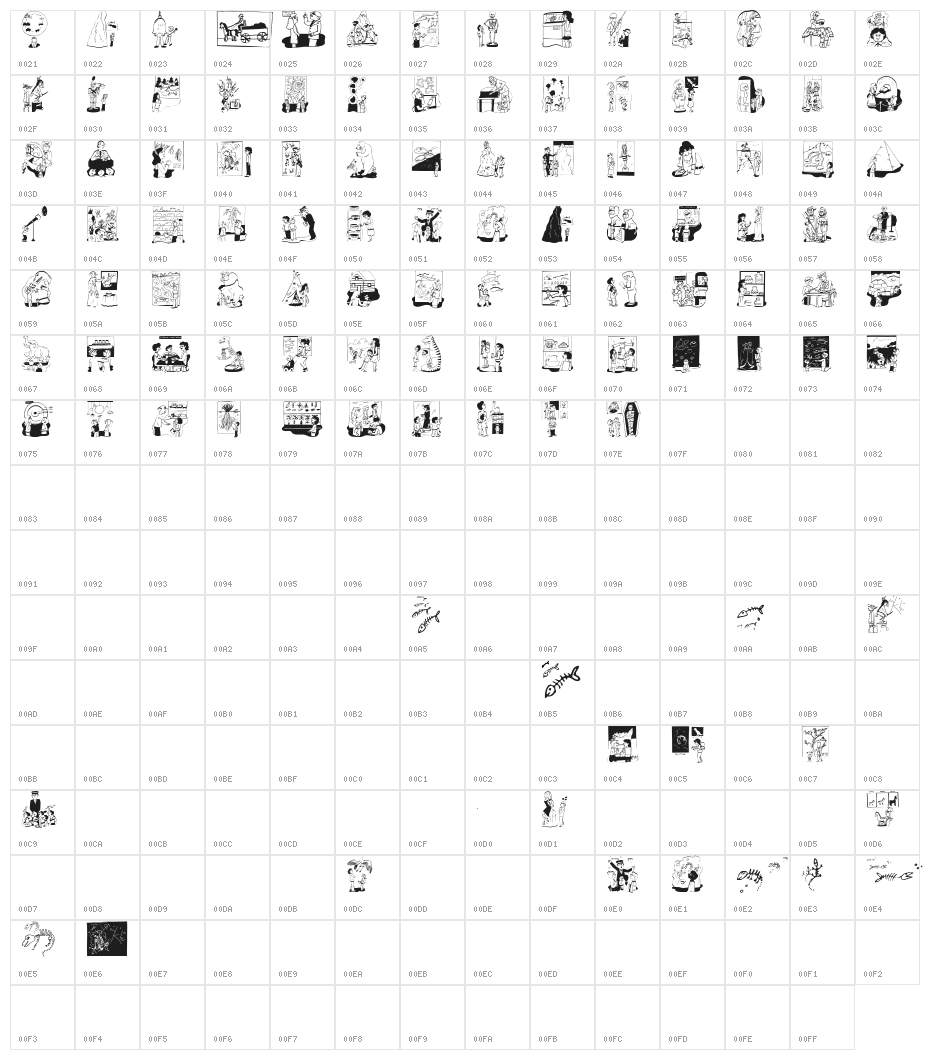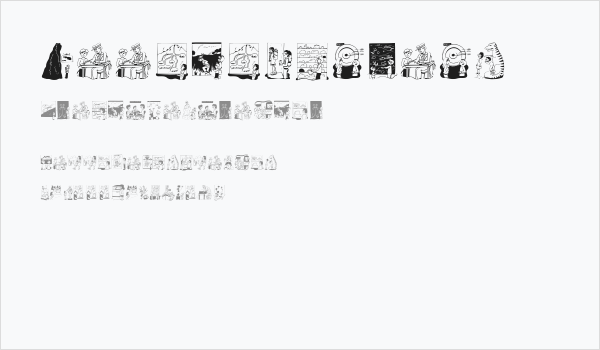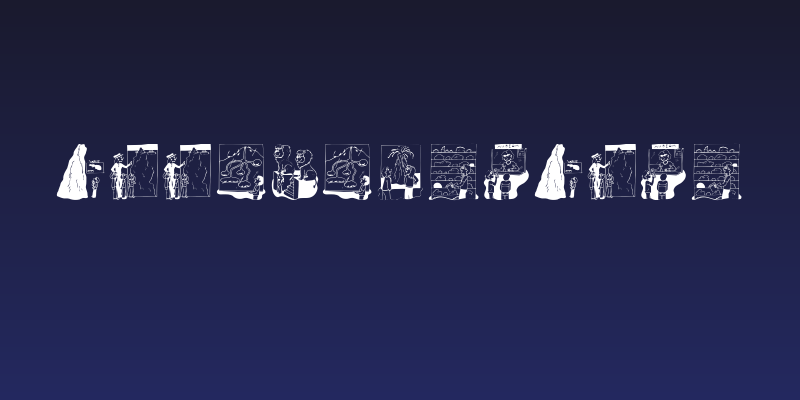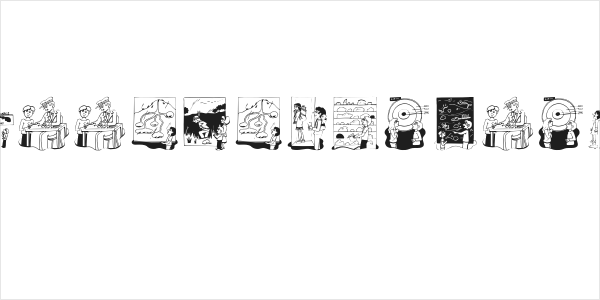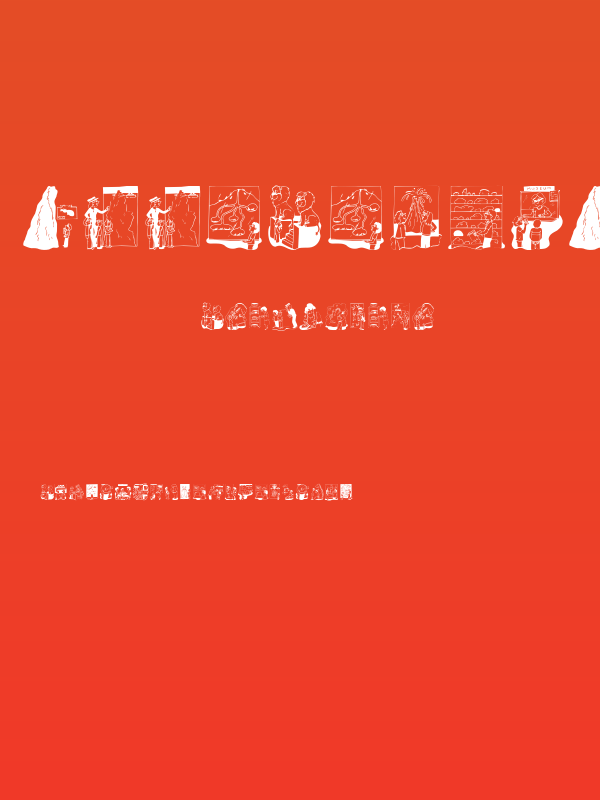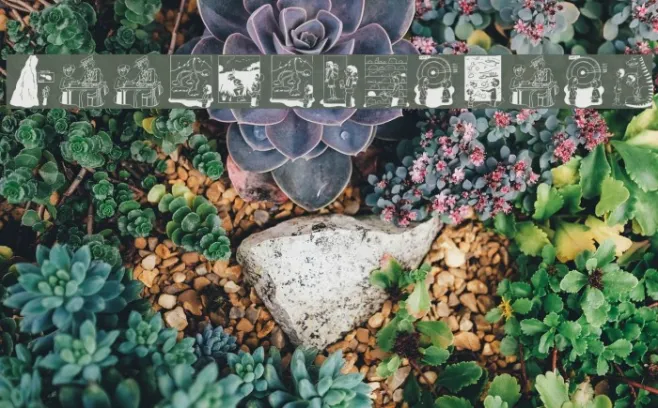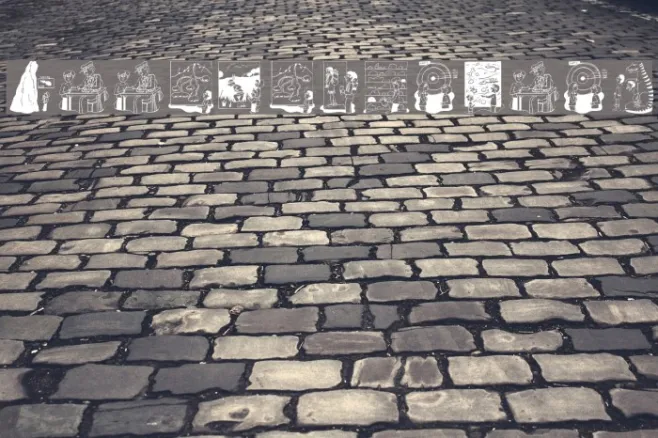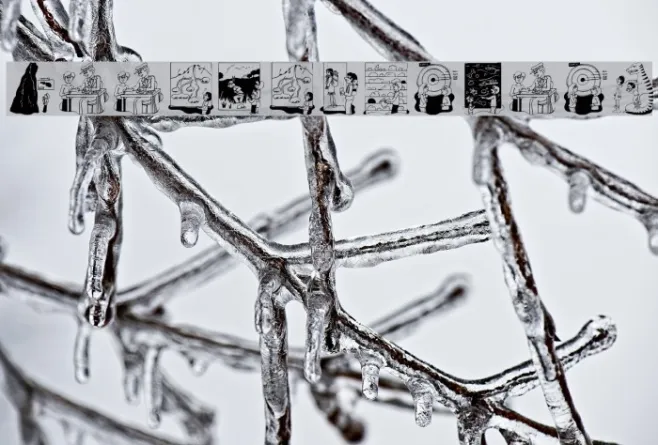
SeeItInMuseum Font
SeeItInMuseum Description
A playful, hand-drawn decorative font where each character is represented by a whimsical museum or gallery scene, featuring people interacting with art, artifacts, and exhibits. The illustrations are detailed and lively, with a consistent black-and-white line art style.
| Overall Style | Playful, Whimsical, Decorative |
| Use Case | Headlines, Posters, Themed Graphics, Educational Materials |
| Proposed Projects | Children's books, educational posters, museum event flyers, creative branding, themed invitations. |